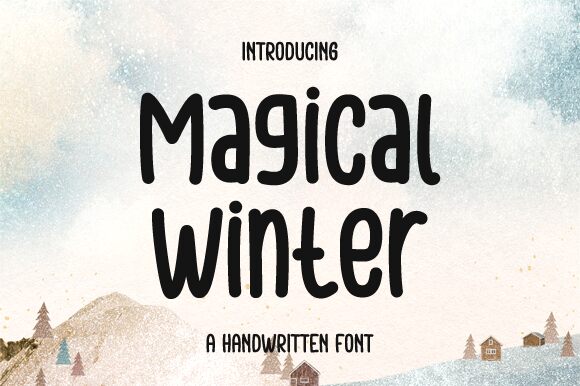
Magical Winter
Magical Winter, a captivating handwritten font crafted by Graphix Line Studio, emanates a whimsical, snow-kissed allure. Its condensed, organic strokes evoke the enchantment of a magical winter landscape, with fluid movements that dance across the page. The interplay of thick and thin lines, coupled with the font's distinctive personality, lends an air of charm and character to any design.
This versatile font shines in a variety of creative applications, from festive holiday branding and packaging to cozy winter-themed illustrations and editorial layouts. Its refined yet playful aesthetic makes it a compelling choice for projects seeking to capture the essence of the season, whether in greeting cards, invitations, or promotional materials. Magical Winter's versatility extends across print and digital mediums, ensuring a seamless integration into a wide range of design endeavors.